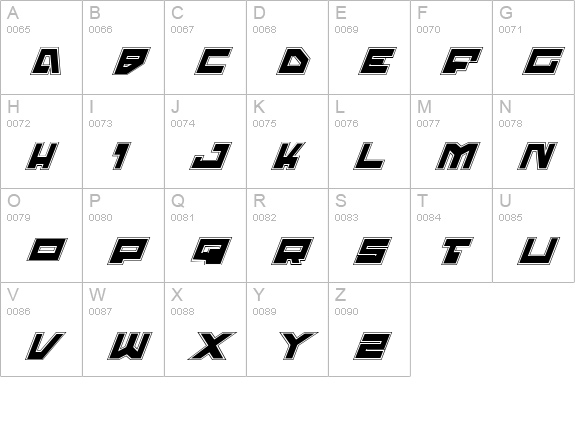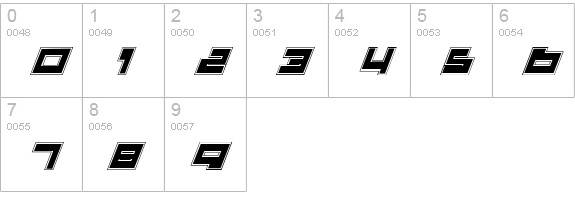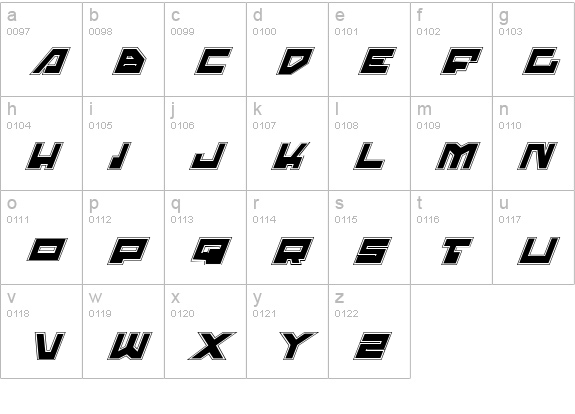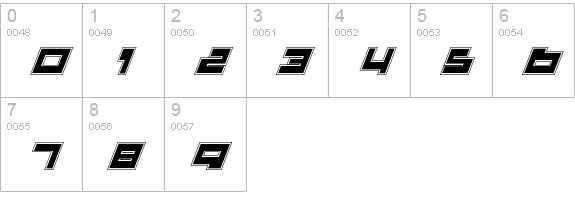
Trajia Pro Italic is a distinctive, italic variant in the Trajia typeface family \xE2\x80\x94 well suited to design and typography projects.
Trajia Pro Italic font is a stunning and stylish typeface that exudes elegance and sophistication. Its sleek and modern design makes it perfect for a wide range of projects, from branding to editorial design. The italicized variation adds a touch of flair and dynamism to your text, making it stand out in any application. What sets Trajia Pro Italic font apart is that it is available for free download at FontsMarket.com. This means that you can access this high-quality font without any cost, making it a valuable resource for designers and typographers looking to add a touch of class to their work. Don't miss out on the opportunity to enhance your projects with the exquisite Trajia Pro Italic font, available for free at FontsMarket.com.